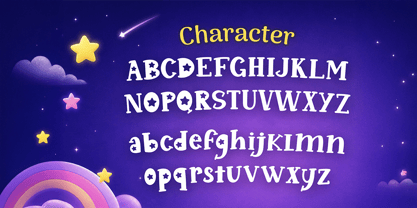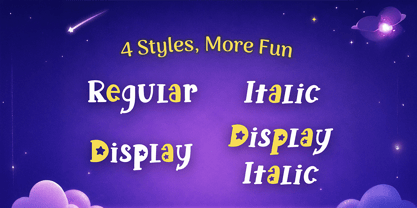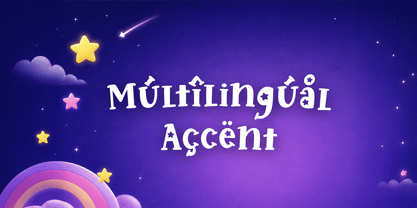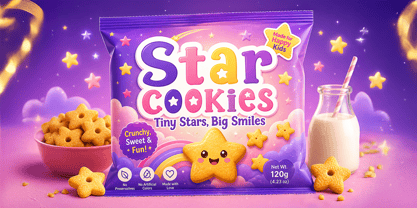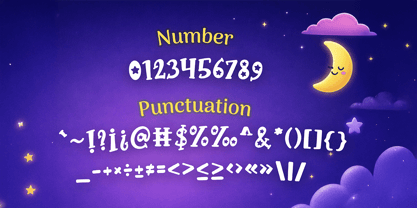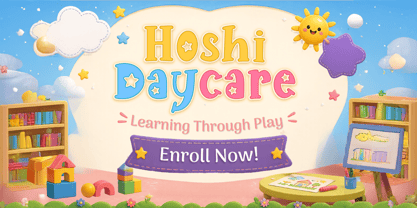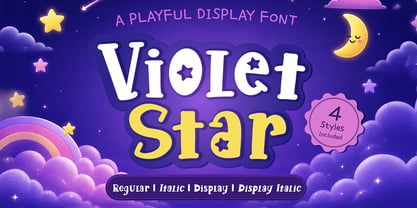
Violet Star
The Violet Star Font Family was designed by Fadli Ramadhan Iskandar and published by Attype Studio. Violet Star contains 4 styles and family package options. More about this family
Violet Star is a playful and magical display font designed to bring joy and wonder to your creative projects.
Coming in 4 distinct styles (Regular, Italic, Display, and Display Italic), this typeface offers incredible versatility.
The signature 'Display' style features charming star-shaped cutouts within the letterforms, adding a unique touch of fantasy.
Fully equipped with multilingual support, numbers, and punctuation, Violet Star is the perfect typographic tool to make your fun, sweet, and imaginative designs truly shine.
Kids' snack and candy packaging, Children's storybook covers and interior illustrations, Toy branding and box packaging, School event posters, banners, and educational materials, Fun stationery, greeting cards, and sticker packs , Colorful YouTube thumbnails for kids' channels
- Multilingual, US Roman, Latin 1 Support